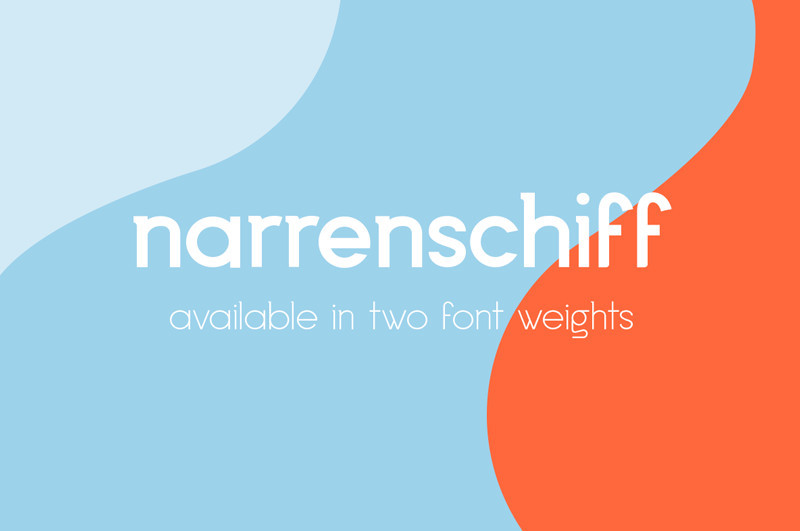
Narrenschiff Free Font
Narrenschiff is a elegant sans font by Jelmer R. is a timeless sans-serif inspired by vintage ski + travel posters, paired with a modern handwritten typeface to add a softer personality. With its classic letter proportions would give a different touch to your typographic work and would be a great choice for branding project, display poster, website, packaging, and broad range of graphic design projects.